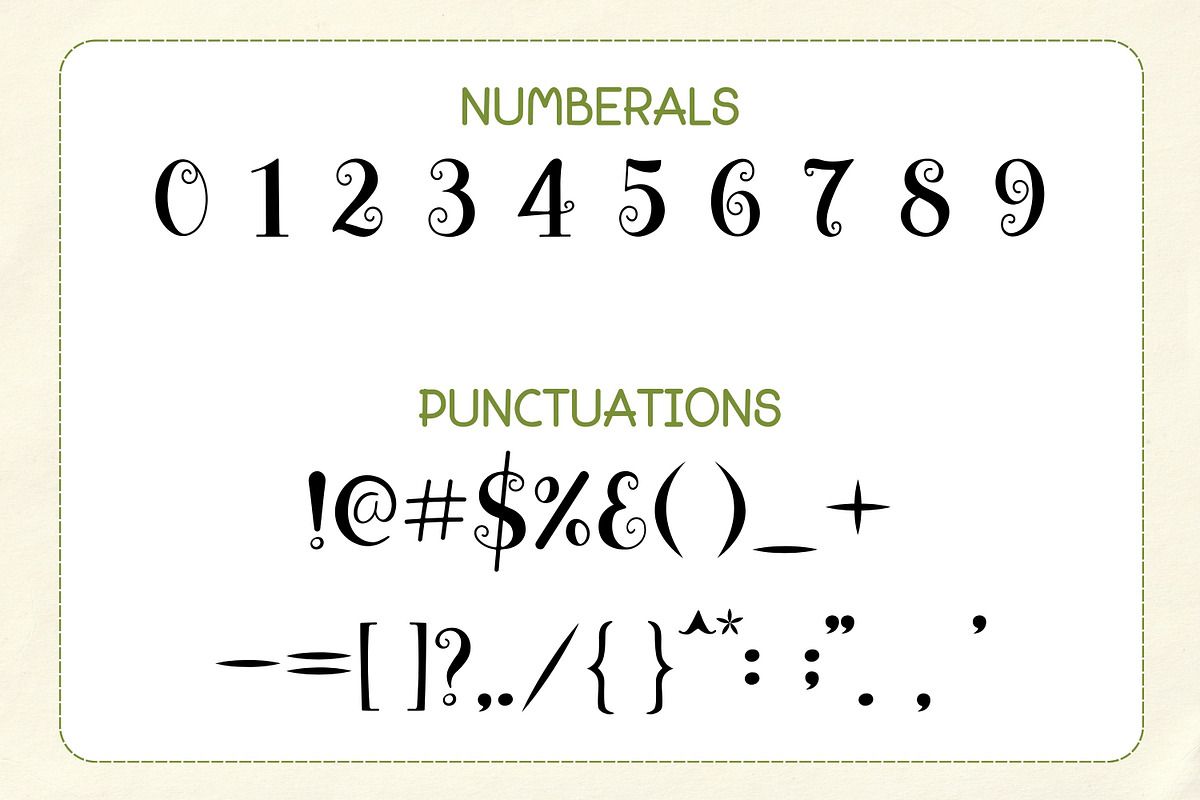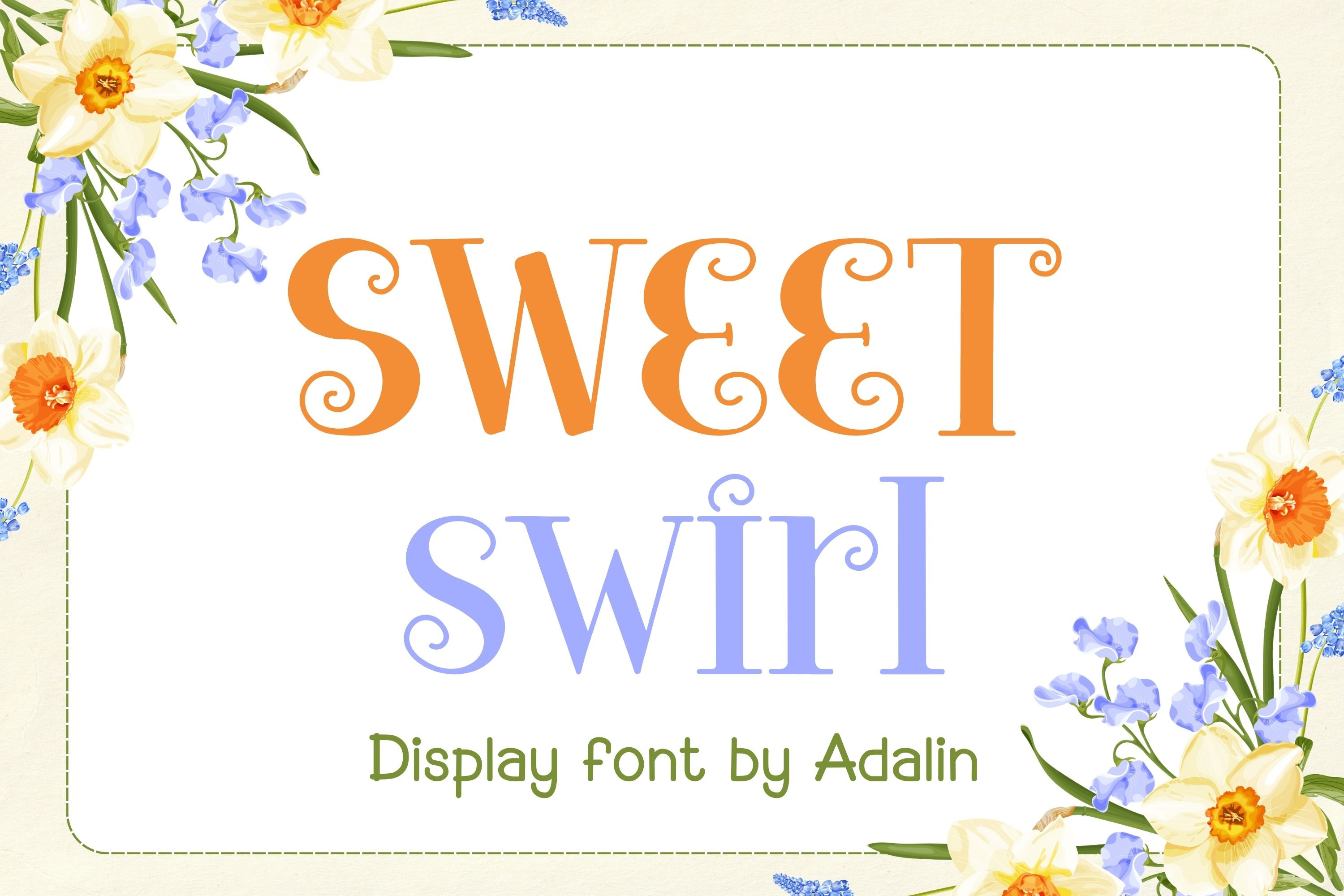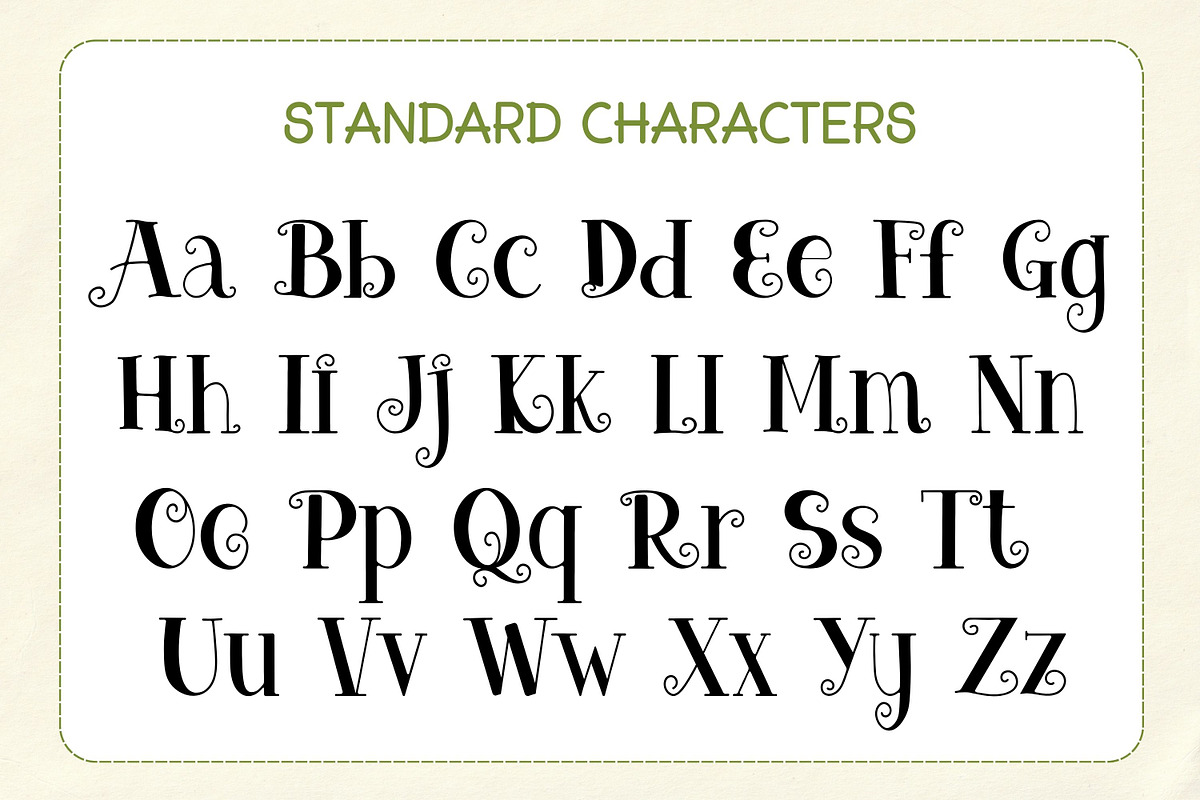
Sweet Swirl - Display Font
Sweet Swirl is a decorative display font with elegant curly details and playful swashes. This font features beautifully crafted uppercase, lowercase, numerals, and punctuation, designed with smooth curves and stylish serif touches that give a charming and whimsical look.
Perfect for Cricut projects, stickers, invitations, wedding designs, sublimation, logos, branding, greeting cards, and craft designs.
Sweet Swirl works great for both digital and print projects and is ideal for designers who need a fancy, cute, and decorative font with a clean and readable style.
Perfect for: Display titles Craft cutting Stickers Scrapbooking Wedding design Sublimation Logo design Quotes Packaging Creative projects